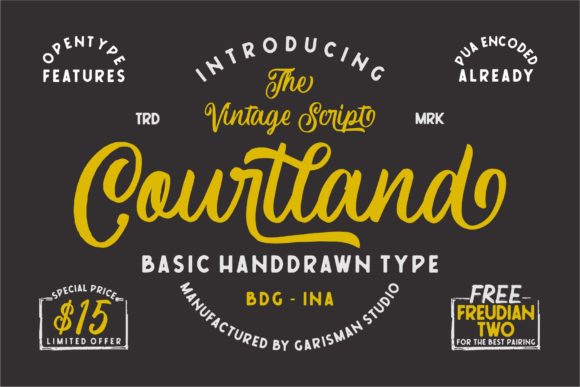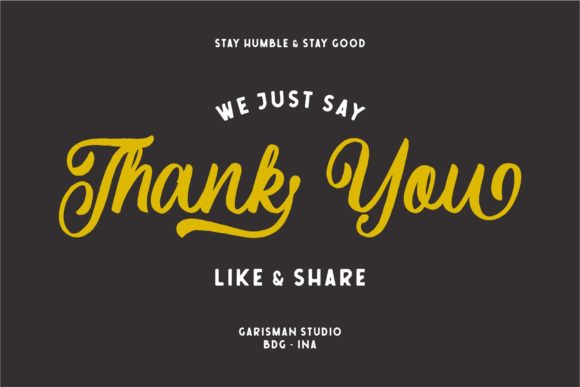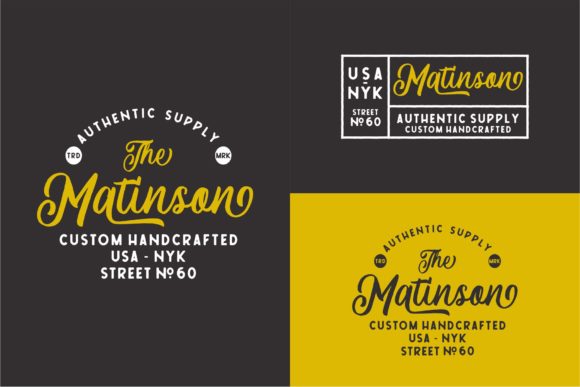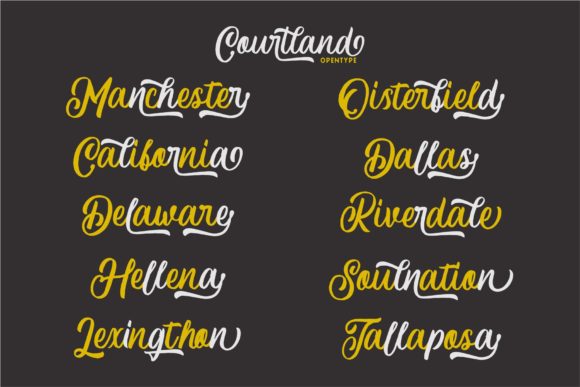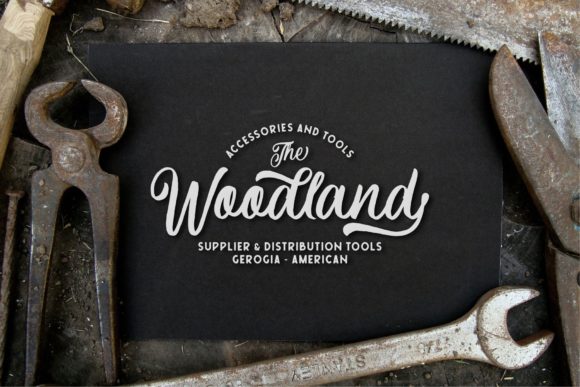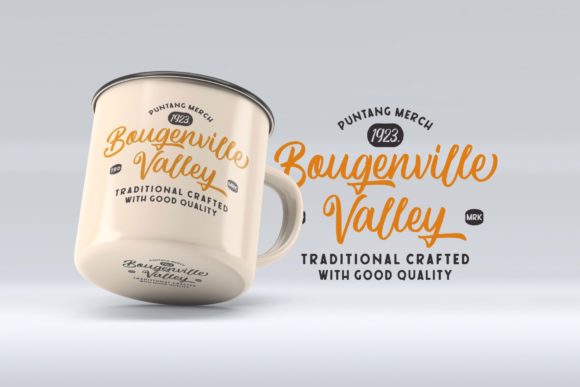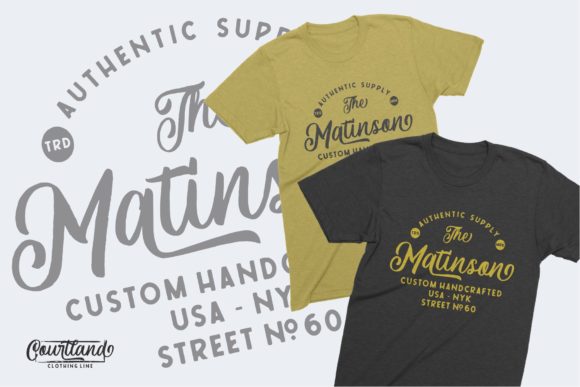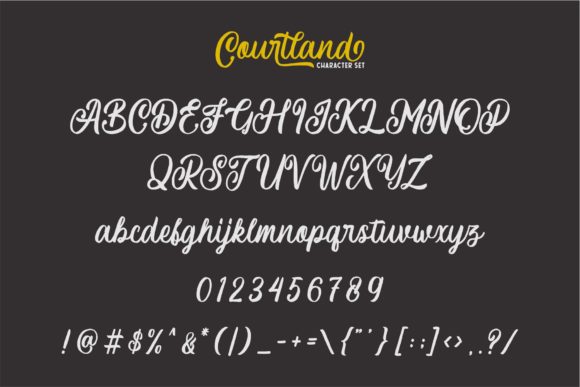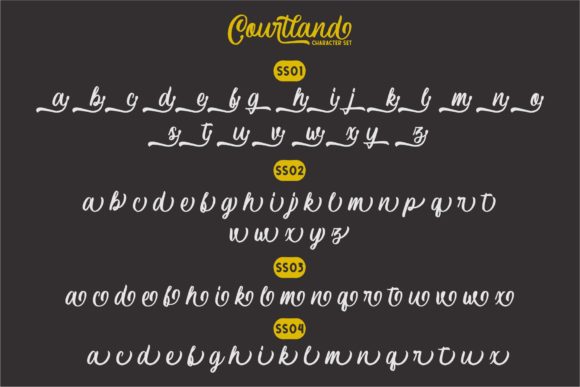
Courtland Font
About Courtland Font
Inspired by Canada’s landscape, this beautiful and bold vintage font will inspire any design project that needs a retro touch. It also includes the amazing font Freudian, which perfectly adds to Courtland’s style.